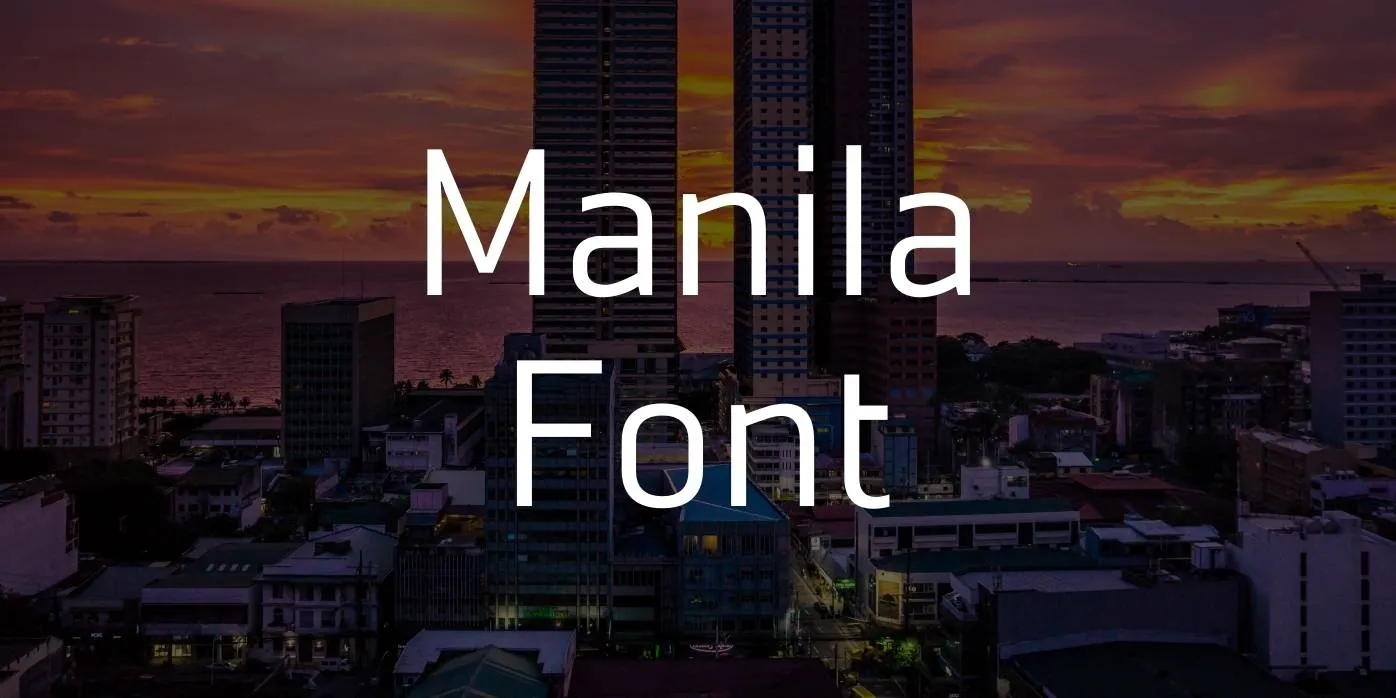
Manila Font
Today we introduce Manila Font which belongs to the sans serif font family. This font family was created by Andrew Paglinawan. This stunning Typeface has two different styles, Manila Regular and Manila Bold. This is a perfect font family for web designing and print design projects.